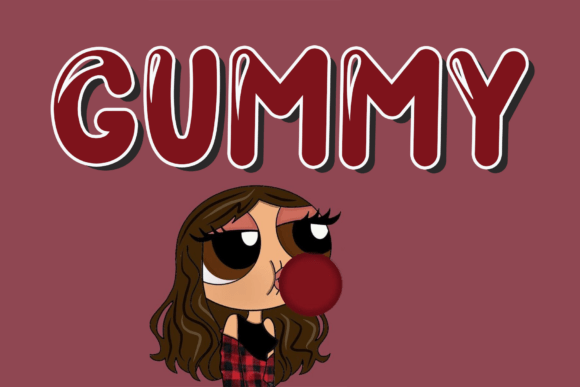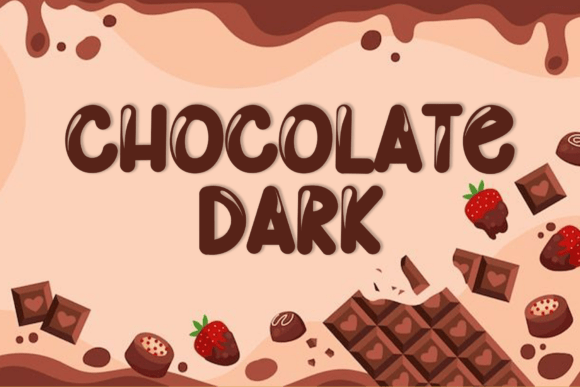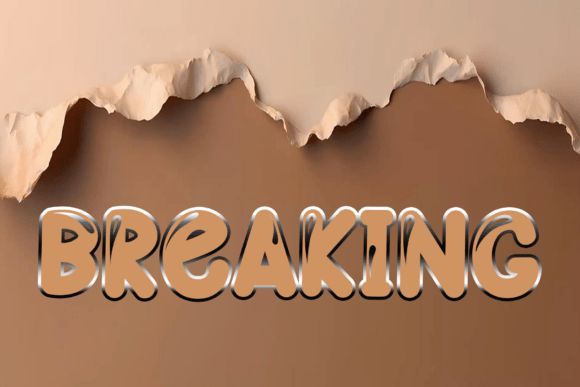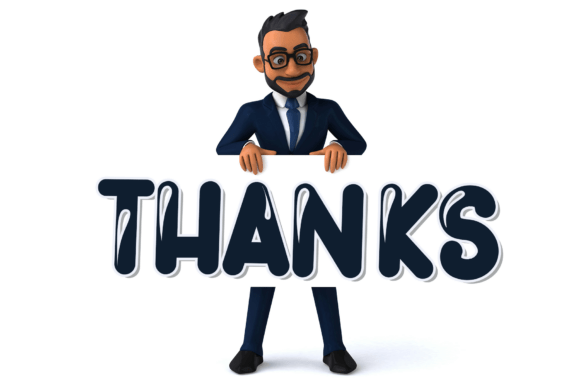
The Joy of Handwritten Design: Discovering the Bubble Font
Have you ever sat down with a pen and paper, trying to create the perfect greeting card for a loved one? The scribbles, the doodles, the imperfect lines – it’s in these moments that we find the true essence of handwritten design. It’s personal, it’s imperfect, and it’s beautiful. And that’s exactly what the Bubble Font aims to capture in a digital format.
This simple yet versatile font is designed to add a natural and effortless feel to any project. Whether you’re creating a heartfelt message or a bold headline, the Bubble Font is guaranteed to bring a touch of warmth and personality to your work. As a designer, you know the value of a font that can convey emotion and character – and that’s exactly what the Bubble Font delivers.
Bubble Font Key Features
- Unique Characteristics: The font features a distinctive, playful bubble-like design, making it ideal for creating whimsical and eye-catching text effects.
Bubble Font Review
I recently had the chance to work with the Bubble Font, and I must say, it was a unique experience. Here’s my honest review:
- The font’s playful and whimsical nature makes it perfect for creative projects, such as children’s books or advertisements.
- The Bubble Font’s rounded edges and smooth curves create a friendly and approachable feel, making it suitable for logos and branding materials.
- The font’s versatility allows it to be used in various settings, from digital to print, and it adapts well to different sizes and resolutions.
- The font may not be suitable for formal or professional projects, as its playful nature may come across as immature.
- The Bubble Font’s irregular letterforms and rounded edges can make it difficult to read at small sizes or in low-contrast environments.
- The font’s lack of sharpness and definition can make it less effective for titles or headings that require a bold and attention-grabbing appearance.
Overall, I think the Bubble Font is a great addition to any designer’s toolkit, but it’s essential to use it judiciously and in the right context. With its unique personality and versatility, it can add a touch of fun and creativity to your projects, but it may not be the best choice for every occasion.
Some common use cases for the Bubble Font include:
1. Creating playful and eye-catching headlines.
2. Designing social media graphics and advertisements.
3. Adding a touch of whimsy to presentations and reports.
Alternatives to Bubble Font for Designers
Lato is a clean and modern sans-serif font, often used for body text and titles. It has a more geometric and minimalist approach compared to Bubble Font, which can make it suitable for a wide range of applications, from corporate websites to fashion brands. Lato is a great choice when you need a clean and easy-to-read font without the playful feel of Bubble Font.
Montserrat is a sans-serif font with a strong, geometric feel, often used for titles and headlines. It has a more urban and modern look compared to Bubble Font, making it suitable for fashion, technology, and urban lifestyle brands. Montserrat is a great choice when you need a font that conveys a sense of sophistication and modernity.
Open Sans is a clean and modern sans-serif font, often used for body text and titles. It has a more neutral and approachable feel compared to Bubble Font, making it suitable for a wide range of applications, from corporate websites to blogs. Open Sans is a great choice when you need a font that is easy to read and doesn’t draw attention away from the content.
What is the difference between Bubble Font and other decorative fonts?
Bubble Font is distinct from other decorative fonts due to its unique rounded shape and playful feel. Other fonts, such as Comic Sans or Papyrus, may have a similar whimsical appearance, but they lack the distinctive rounded edges and smooth flow of Bubble Font. Additionally, Bubble Font is often more versatile and can be used in a wide range of design applications, from children’s materials to packaging and advertising.